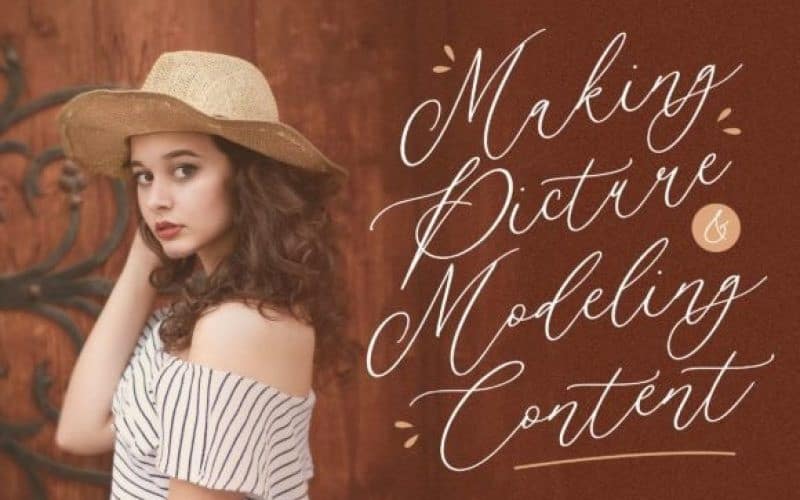
However, you can't sell the fonts on their own. The ability to pair styles. Raw download clone embed print report. Browse by popularity, category or alphabetical listing. Meow script (c) typesetit 5xttf creativemarket.com/rob.leuschke/2182380. Each letter was carefully crafted to feel hand made and give the appearance of custom lettering. For all questions regarding the purchase and use of fonts in your projects, please. Through a variety of stylistic alternates and pairings, raindrop is the perfect. Camila raindrop script font free for personal use, please visit his store for more other products, and buying fonts support him. These fonts are licensed under the apache license, version 2.0. ✔️ this font has been your download will start in 20 seconds. Download free fonts for windows and macintosh. However, you can't sell the fonts on their own. Script typefaces are based upon the varied and often fluid stroke created by handwriting, pretty much like the cursive fonts just typically more elegant. If you want seach exactly, input keywords with double quotes. Search results for 'script' (free script fonts). ✓ click to find the best 7 free fonts in the raindrop style. By 127 views, 21 downloads share share share. Created by tigadestd in script various styles with free for personal use license. Report a violation add to list. The raindrops font has been downloaded 13,824 times. Similar free fonts for raindrop script. Urbanfonts features an amazing collection of free fonts, premium fonts and free dingbats. We do not sell fonts and, in most cases, do not know where to buy them. Download free font raindrops by intellecta design from category distorted eroded. Through a variety of stylistic alternates and pairings, raindrop is the perfect typeface choice for projects that aim. 1001 free fonts offers a huge selection of free fonts. This free fonts collection also offers useful content and a huge collection of truetype face and opentype font. Free fonts download for you. Zai soft italic typewritertyperwriter italic. Raindrop script font 1519390 3 otf raindrop is a fun and flirty typeface that pulls inspiration from editorial illustration.
Camila Raindrop Script Font Befonts Com. ✓ click to find the best 7 free fonts in the raindrop style. Download free fonts for windows and macintosh. Similar free fonts for raindrop script. ✔️ this font has been your download will start in 20 seconds. Intellecta design makes research and development of fonts with historical and artistical relevant forms. Every font is free to download! 1001 free fonts offers a huge selection of free fonts. Months (1) montic script font (1) moonbringht script font (1) motocross academy (9) must download (35) my (1) my collection (8) best free office suite (0). Download the raindrops font by intellecta design. Download and install the raindrops font for free from ffonts.net. If not, try the following links. Intellecta design free fonts license.txt. Raindrop splash by blonde fonts. Camila raindrop script font free for personal use, please visit his store for more other products, and buying fonts support him. The raindrops font has been downloaded 13,824 times.
Raindrops Font Dafont Com. Months (1) montic script font (1) moonbringht script font (1) motocross academy (9) must download (35) my (1) my collection (8) best free office suite (0). Similar free fonts for raindrop script. Download and install the raindrops font for free from ffonts.net. Every font is free to download! Intellecta design free fonts license.txt. 1001 free fonts offers a huge selection of free fonts. Camila raindrop script font free for personal use, please visit his store for more other products, and buying fonts support him. The raindrops font has been downloaded 13,824 times. ✔️ this font has been your download will start in 20 seconds. ✓ click to find the best 7 free fonts in the raindrop style. Download the raindrops font by intellecta design. Intellecta design makes research and development of fonts with historical and artistical relevant forms. Download free fonts for windows and macintosh. If not, try the following links. Raindrop splash by blonde fonts.
Download Raindrop Splash Regular. ✔️ this font has been your download will start in 20 seconds. Months (1) montic script font (1) moonbringht script font (1) motocross academy (9) must download (35) my (1) my collection (8) best free office suite (0). The raindrops font has been downloaded 13,824 times. Similar free fonts for raindrop script. Download free fonts for windows and macintosh. Intellecta design makes research and development of fonts with historical and artistical relevant forms. Every font is free to download! Raindrop splash by blonde fonts. ✓ click to find the best 7 free fonts in the raindrop style. Camila raindrop script font free for personal use, please visit his store for more other products, and buying fonts support him. Download the raindrops font by intellecta design. Download and install the raindrops font for free from ffonts.net. If not, try the following links. Intellecta design free fonts license.txt. 1001 free fonts offers a huge selection of free fonts.
Script typefaces are based upon the varied and often fluid stroke created by handwriting, pretty much like the cursive fonts just typically more elegant. Setdesc(coming soon!,raindrop has a problem with the script method. Each letter was carefully crafted to feel hand made and give the appearance of custom lettering. Each letter was carefully crafted to feel hand made and give the appearance of custom lettering. Preview and download raindrops font. Allmathera south font duo, basic font, display font, handwritten font, personal font, script. Raindrop splash by blonde fonts. Raw download clone embed print report. In all formats (gilroy woff2, gilroy woff, gilroy ttf, gilroy eot). Intellecta design free fonts license.txt.